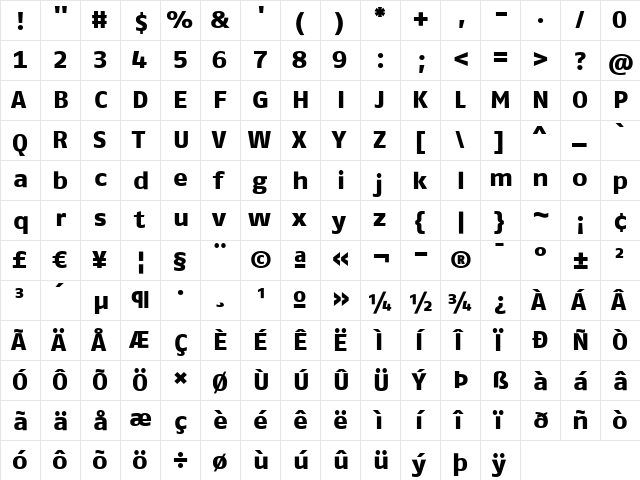
FagoExTf Extrabold
Extrabold · Ole Schaefer, . Published by FontShop International for FontFont Release Fago Extended is a trademark of FSI Fonts and Software GmbH  ·
Design Context for FagoExTf Typeface
FagoExTf takes a measured approach to typography — its balanced proportions and neutral character make it a reliable workhorse for both digital and print work. Its bold stroke weight gives it real presence on the page.